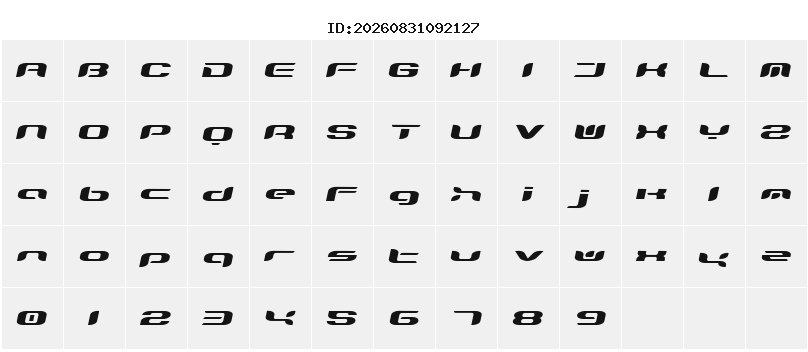
TeknikohlRemix01 Preview
• Font Name: TeknikohlRemix01
• Font Style: Oblique
• Font ID: Macromedia Fontographer 4.1.5 TeknikohlRemix01 Oblique
• Full Font Name: TeknikohlRemix01 Oblique
• Version: Macromedia Fontographer 4.1.5 2/23/99
• PostScript Name: TeknikohlRemix01Oblique
• Character Count: 230
About TeknikohlRemix01.ttf
TeknikohlRemix01.ttf is a modern, elegant sans-serif font designed for ultimate readability and visual harmony. Perfect for branding, headlines, web design, and print materials.